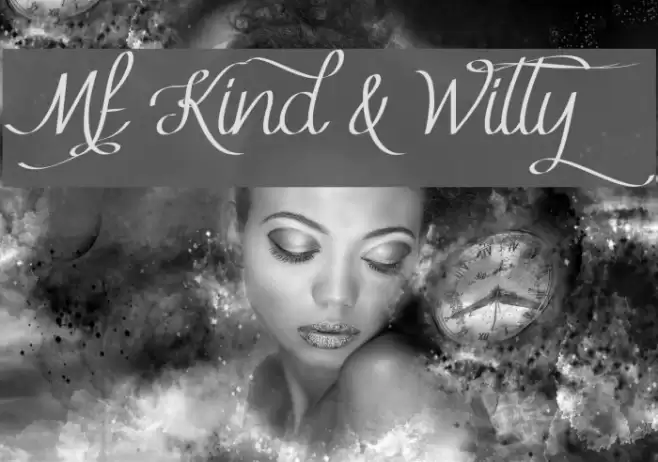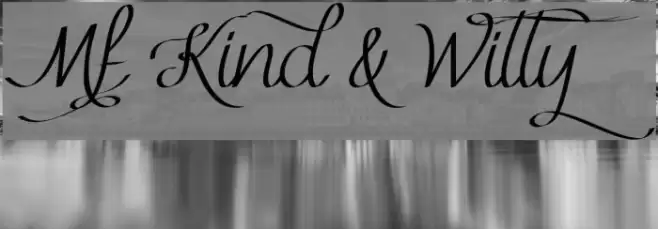
Mf Kind & Witty Font
Mf Kind & Witty Description
This font features an elegant and flowing script style, characterized by its intricate and decorative letterforms. The uppercase letters are adorned with sweeping flourishes and loops, giving them a sophisticated and artistic appearance. The lowercase letters maintain a consistent flow, with smooth curves and connections that enhance readability while retaining a stylish flair. The numerals are designed with a similar elegance, incorporating subtle curves and distinctive shapes. Special characters are thoughtfully crafted to match the overall aesthetic, ensuring a cohesive look across all text elements. This font exudes a sense of grace and refinement, making it suitable for formal and creative applications.
An elegant and flowing script font with decorative flourishes from Uncategorized fonts.
- Proposed Projects: Ideal for wedding invitations, elegant branding, greeting cards, and artistic projects.
- Use Case: Headlines, Logos, Invitations